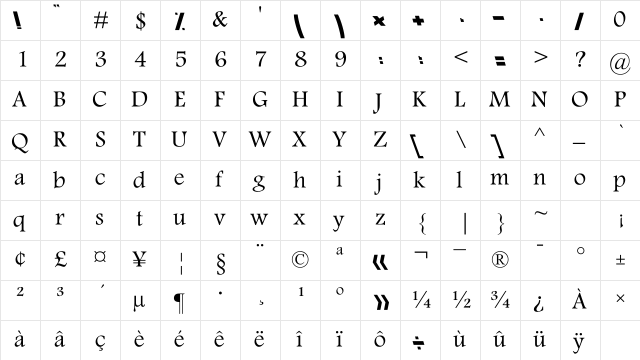
Motken K Nasim Motken K Nasim
Design Context for Motken K Nasim Typeface
Motken K Nasim takes a measured approach to typography — its balanced proportions and neutral character make it a reliable workhorse for both digital and print work.